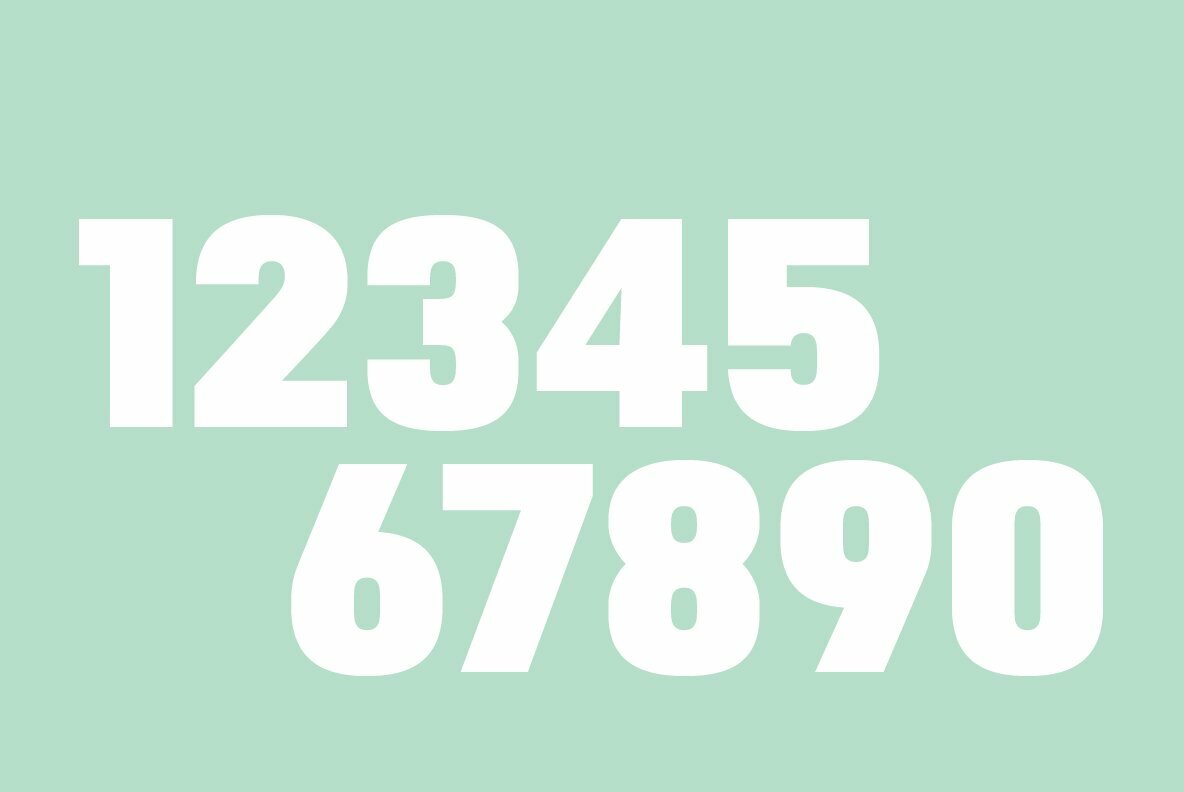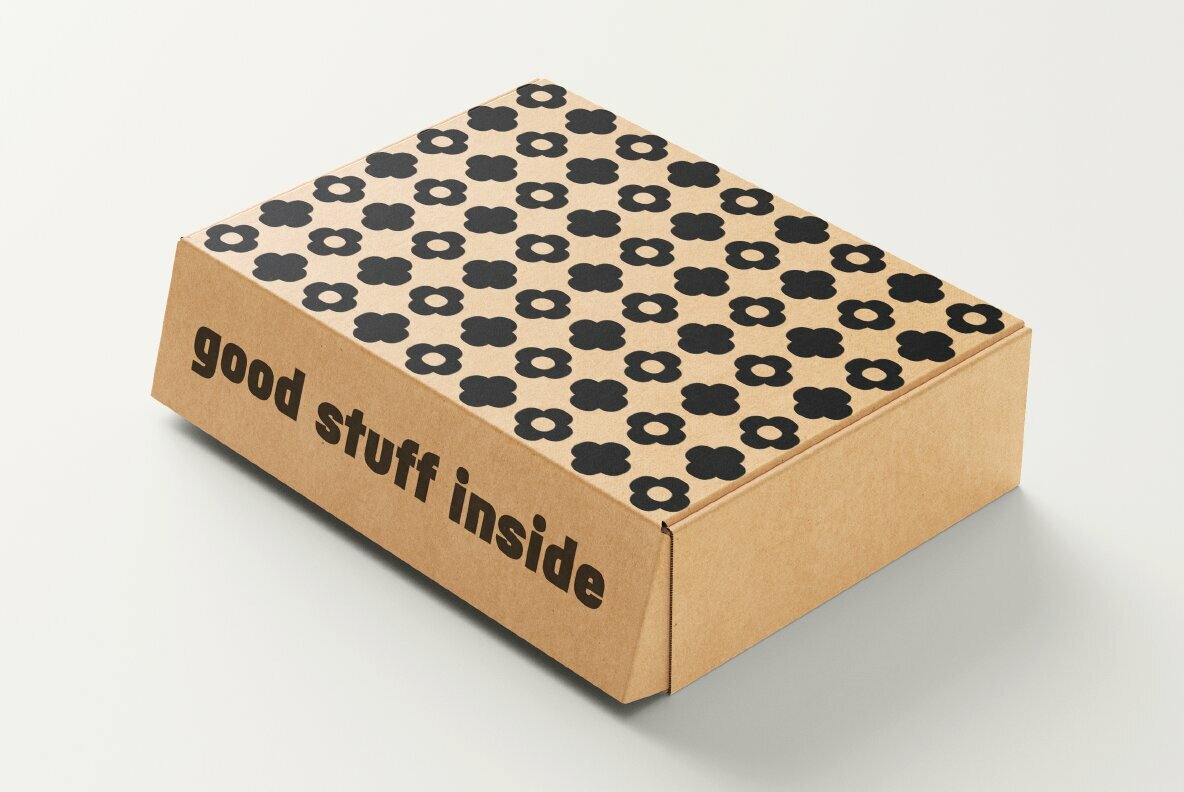
Binario Font
Binario is a simple and friendly font with three weights and matching italics (obliques). It is an excellent choice for giving a clean, unique, and modern look to headlines or body text. Use it for branding, menus, posters, magazines, and screen-based design. All three font weights are versatile and easy to read at any size. It is simple to create organized content because each weight is distinct. The light weight is an excellent body text with generous interior space. The regular weight is a confident body or heading text. The bold weight is superb for impactful headlines. The glyphs are made with tightly rounded forms. This makes reading easy on screens or prints that are low resolution. Binario supports all Western European languages and comes with 265 glyphs. It offers OpenType features, such as standard ligatures (fl and fi) and a discretionary ligature for LL (useful for Italian and Spanish). Several symbols are also included; train, pointing finger, arrow right, flowers, plus in circle, minus in circle, right-facing arrow head in circle, and a sound recording copyright. Looking closely at the letters you will see many characteristics that make this font unique. For example, it has a simple one-story a, the tail of the Q is a flat horizontal stroke, the J has a stroke at the top of the stem to prevent irregular letterspacing, the ø has a hollow interior, and the r has a horizontal top hook (ear). The geometric and modular characteristics of Binario subtly reference the Art Deco and early modernist periods. Designers with an intention to reference these eras will have an easy time with Binario. However, it will also not overpower content. Designers who need a versatile font will find it works well for many different types of communication needs. Binario was designed in Siena, Italy taking some inspiration from train stations and shop signage. The name Binario means train platform in Italian. Other aspects that informed the design of this font are modularity and efficiency. The interior rounded forms of the letters (counterforms) are based on shape of the Roman arch. Binario has a sibling, Binario Soft. This version has gently rounded stroke ends, which make a softer impression on the page. It is available on this vendor’s website.